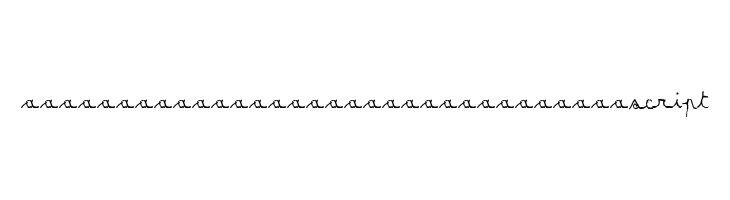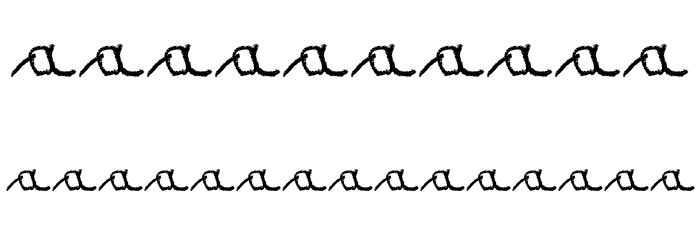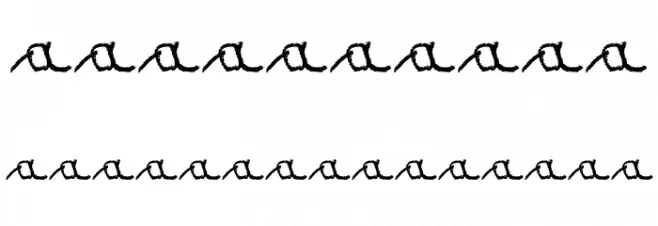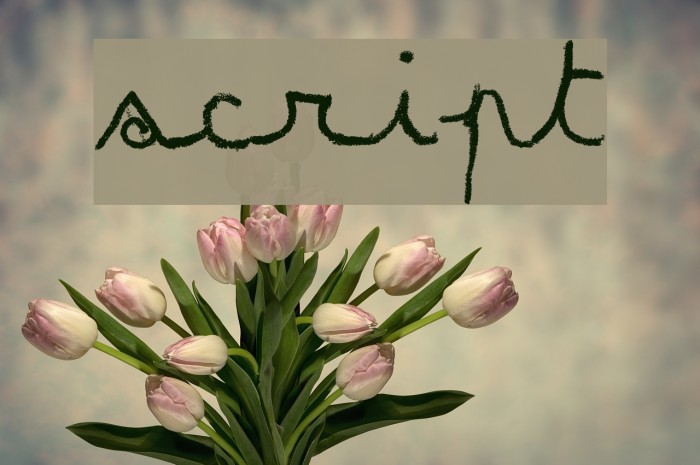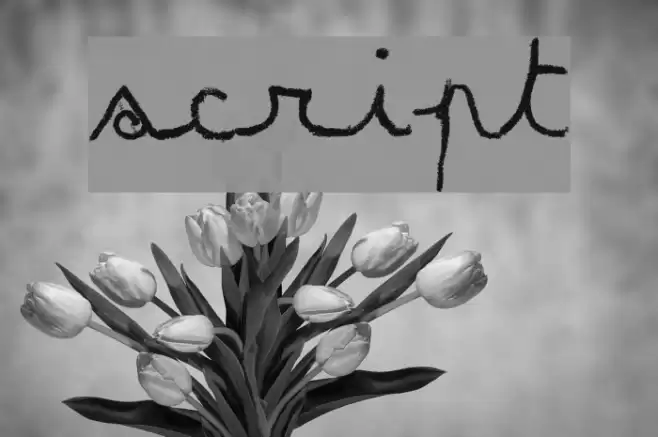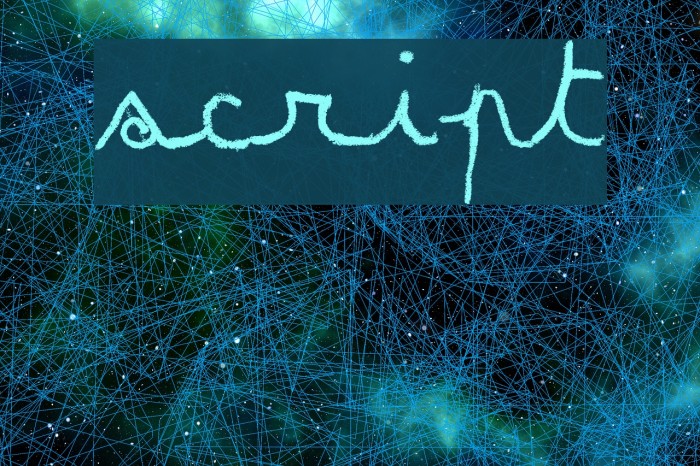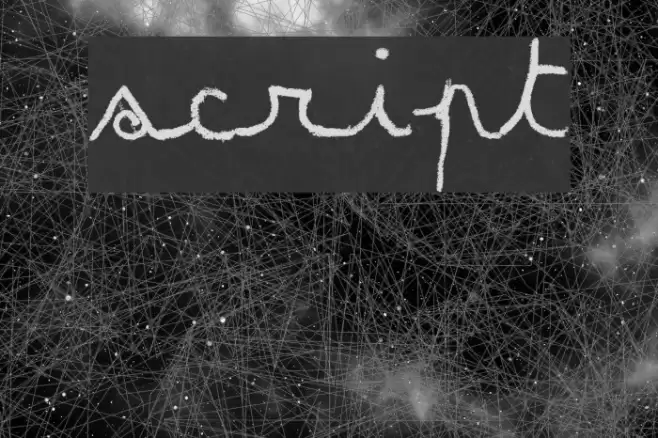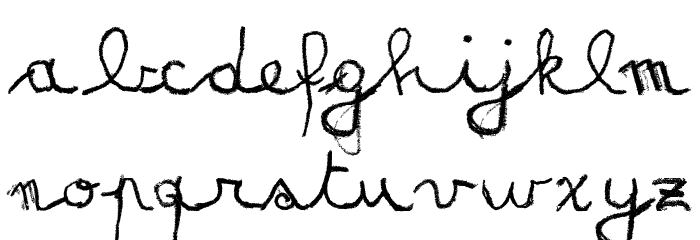
MATILDAS GRADE SCHOOL HAND_DEMO_script Font
MATILDAS GRADE SCHOOL HAND_DEMO_script Description
This font exudes a playful and casual handwritten style, reminiscent of a child's handwriting. The letters are connected in a flowing script, giving it an informal and approachable appearance. The strokes vary in thickness, adding a dynamic and lively feel to the text. The overall design is charming and whimsical, making it suitable for projects that require a personal touch. The font's organic and slightly irregular shapes contribute to its authenticity and warmth.
| Overall Style | Casual, Playful |
| Use Case | Headlines, Informal text, Personal notes |
| Proposed Projects | Ideal for children's books, greeting cards, educational materials, and playful branding projects. |